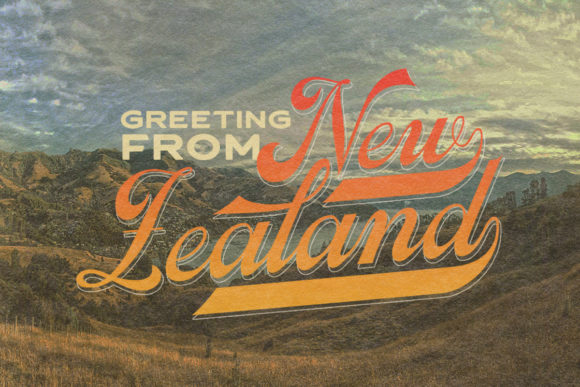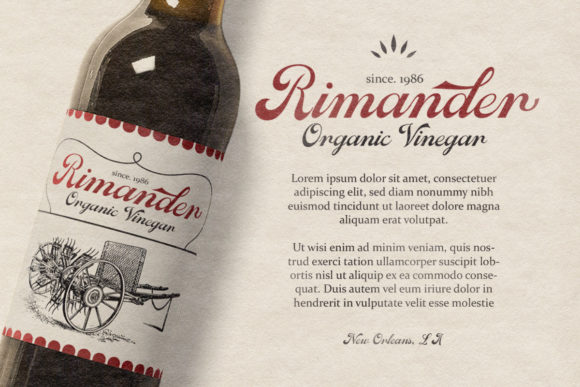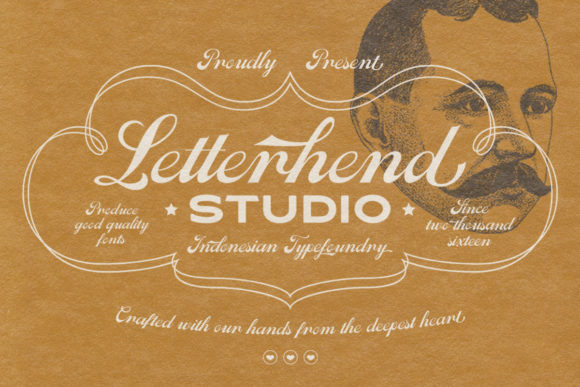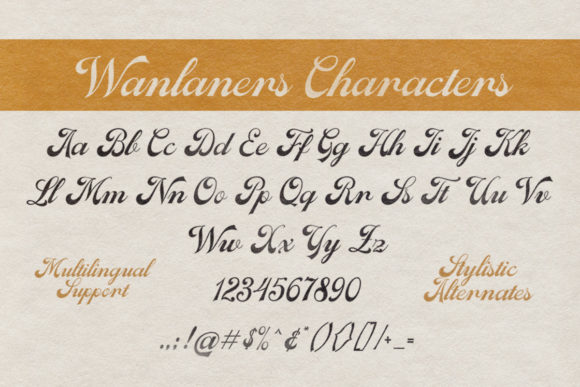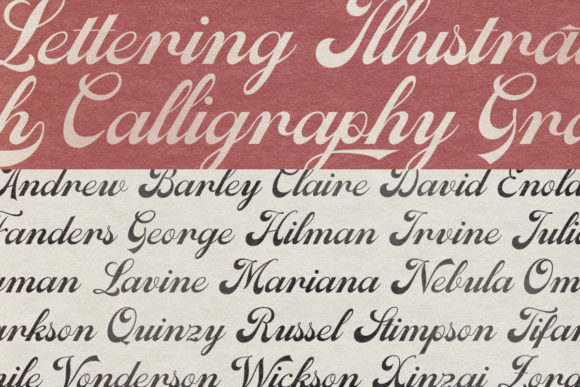
About Wanlaners Font
Wanlaners is an exquisite, bold handwritten font, masterfully designed to become a true favorite. It maintains its classy calligraphic influences while feeling contemporary and fresh. Fall in love with it and bring your projects to the highest levels!